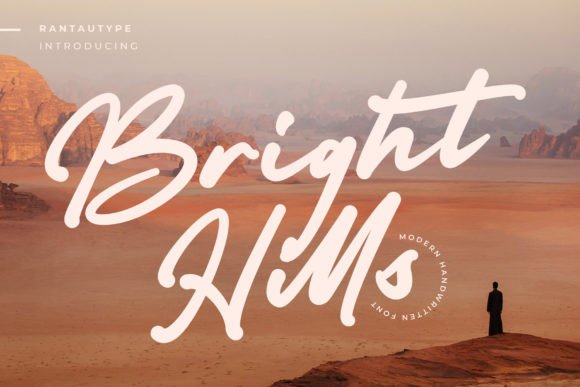
The Bright Hills Font: A Modern Style Powerhouse for Your Design Projects
Have you ever been in the middle of a design project, and suddenly, you’re stuck on finding the perfect font? I recall a particularly frustrating experience while working on a wedding invitation design. My client wanted a sophisticated yet modern look, but I just couldn’t seem to find a font that fit the bill. That’s when I stumbled upon the Bright Hills font, and it completely transformed my design. In this article, we’ll dive into the world of Bright Hills, exploring its features, uses, and some helpful tips for getting the most out of this versatile font.
A Personal Review of Bright Hills Font
As a designer, I’m always on the lookout for fonts that can elevate my projects. Here’s what I love about Bright Hills:
• ✨ Modern and Professional: Bright Hills exudes a sense of modernity and professionalism, making it perfect for a wide range of design projects.
• ✅ Versatile: This font can be used for everything from watermarking photography to branding, wedding events, signature logos, quotes, album covers, magazines, business cards, and more.
• 💡 Easy to Read: The clean lines and well-spaced characters make Bright Hills easy to read, even at smaller font sizes.
While Bright Hills is an excellent font, there are a few minor quirks to be aware of:
• 🤔 Limited Extras: The font comes with a standard set of characters, but it may not have extensive language support or an abundance of OpenType features.
• ⚠️ Not Ideal for Body Text: While Bright Hills is great for headings and titles, it may not be the best choice for body text due to its modern, sleek design.
The Backstory of Bright Hills Font
While the origins of Bright Hills are unclear, it’s easy to imagine that it was designed with the modern designer in mind. Perhaps the creator, inspired by the sleek lines of city skylines and the warmth of sunset-lit hills, crafted Bright Hills to be a versatile and sophisticated font. Whatever the inspiration, Bright Hills has undoubtedly become a go-to choice for designers seeking a professional, modern look.
Font Name Bright Hills Font
Author RantauType
What type of projects is Bright Hills best suited for? Bright Hills is ideal for a wide range of design projects, including watermarking photography, branding, wedding events, signature logos, quotes, album covers, magazines, business cards, and more.
Can I use Bright Hills for body text? While Bright Hills is great for headings and titles, it may not be the best choice for body text due to its modern, sleek design.